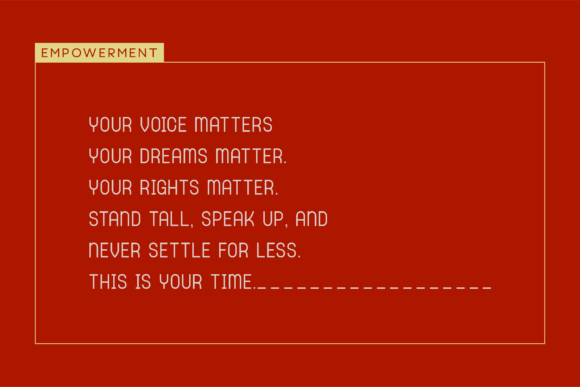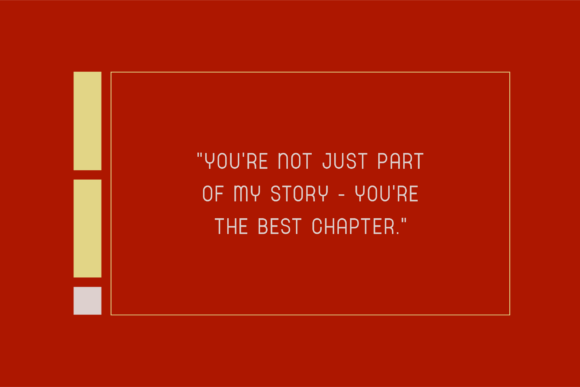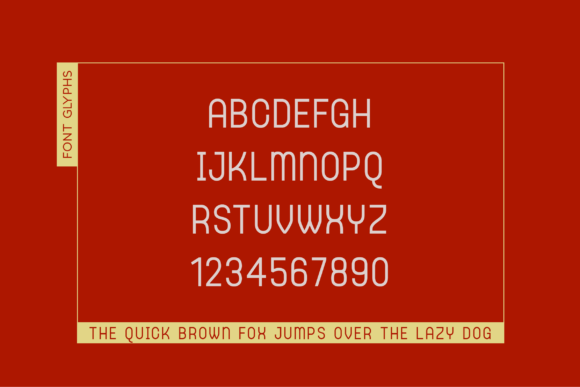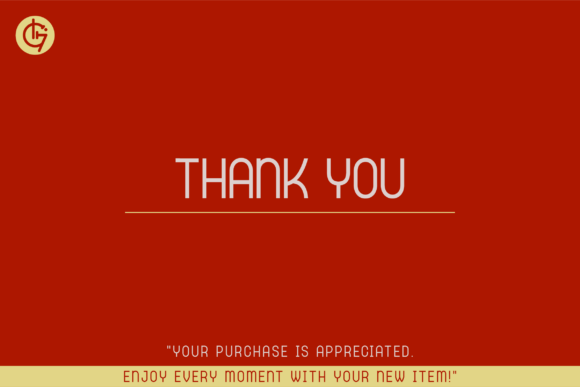
Unlocking the Power of Typography: Introducing Astropish Font
Have you ever stared at a blank page, trying to bring a new idea to life, only to be met with a blank stare from your design tools? That’s where Astropish Font comes in – a game-changing typography solution that’s about to revolutionize your creative process.
Astropish Font is a modern sans serif typeface designed specifically for the modern designer. With its bold, all-caps design and clean lines, it’s the perfect tool for making a statement and leaving a lasting impression. Whether you’re working on a logo, website, or print material, Astropish Font is the ideal choice for projects that require a sense of professionalism and impact.
What sets Astropish Font apart is its versatility and readability. Its strong, geometric structure ensures it looks great in both large-scale headlines and smaller text blocks, making it a valuable addition to any designer’s toolkit.
Astropish Font Key Features
- Font Family: Astropish comes in two font families, Astropish Regular and Astropish Bold, each with its unique characteristics.
- Unique Characteristics: Astropish Font features a futuristic and intergalactic design, with unique letterforms and symbols that evoke a sense of space exploration and discovery.
Astropish Font Review
I’ve had the chance to work with Astropish Font for a recent project, and I must say it’s been a unique experience. ✨ The font’s futuristic aesthetic really shines through in its sleek, high-tech designs. It’s perfect for sci-fi themed projects, or anything that requires a touch of extraterrestrial flair.
One of the things I appreciate about Astropish is its wide range of languages supported. ✨ It’s always a bonus when a font can cater to diverse audiences, and Astropish delivers. Additionally, the font’s OpenType features allow for some impressive typography tricks, making it a great choice for creatives who want to push the boundaries of design.
Limitsations:
- ⚠️ Astropish can feel a bit overwhelming in large blocks of text. Its futuristic design is best suited for shorter, attention-grabbing snippets.
- ⚠️ The font’s high-tech vibe may not be to everyone’s taste. Some users may find it too futuristic or even tacky.
Overall, I’d say Astropish Font is a great addition to any designer’s toolkit. While it may not be for every project, its unique aesthetic and features make it a valuable resource for those looking to add some extraterrestrial flair to their work.
For best results, use Astropish Font in bold or italic styles to add emphasis to your text. Experiment with different font sizes and colors to create visual interest.
Astropish Font is ideal for use in:
- Space-themed designs
- Science fiction projects
- Galaxy-inspired art
- Stellar branding